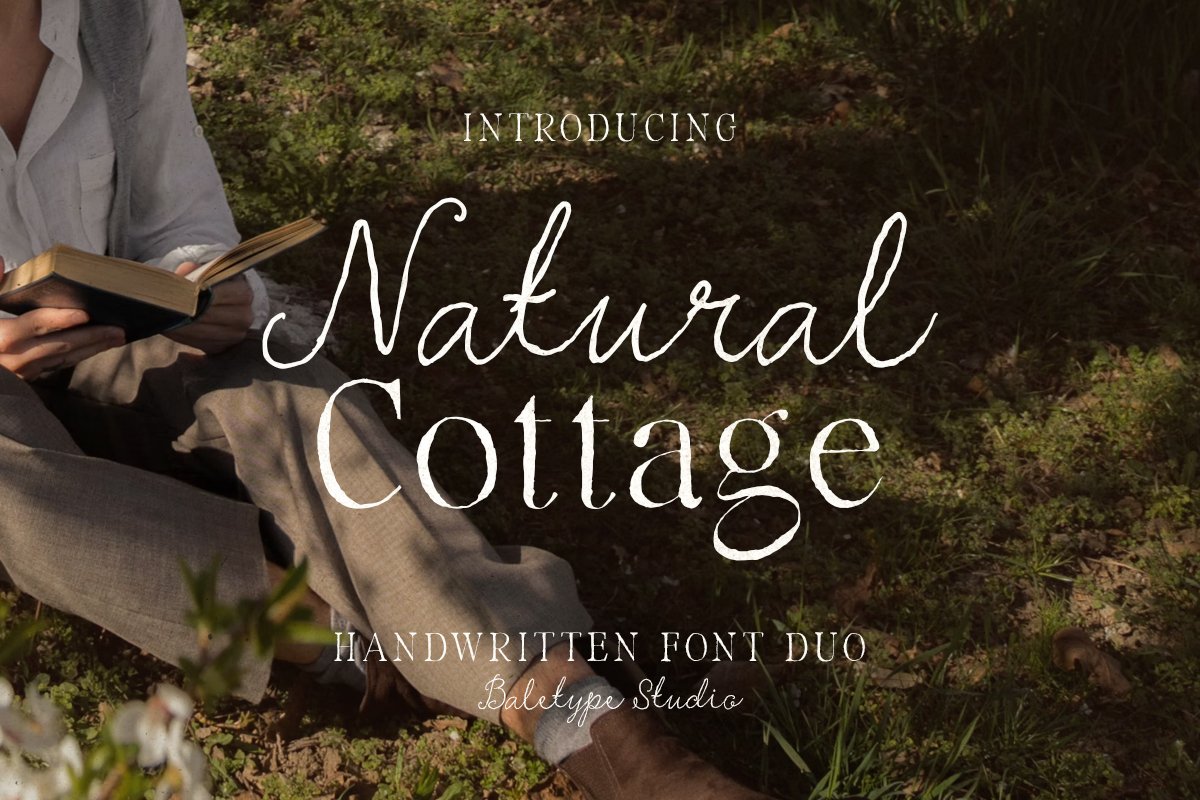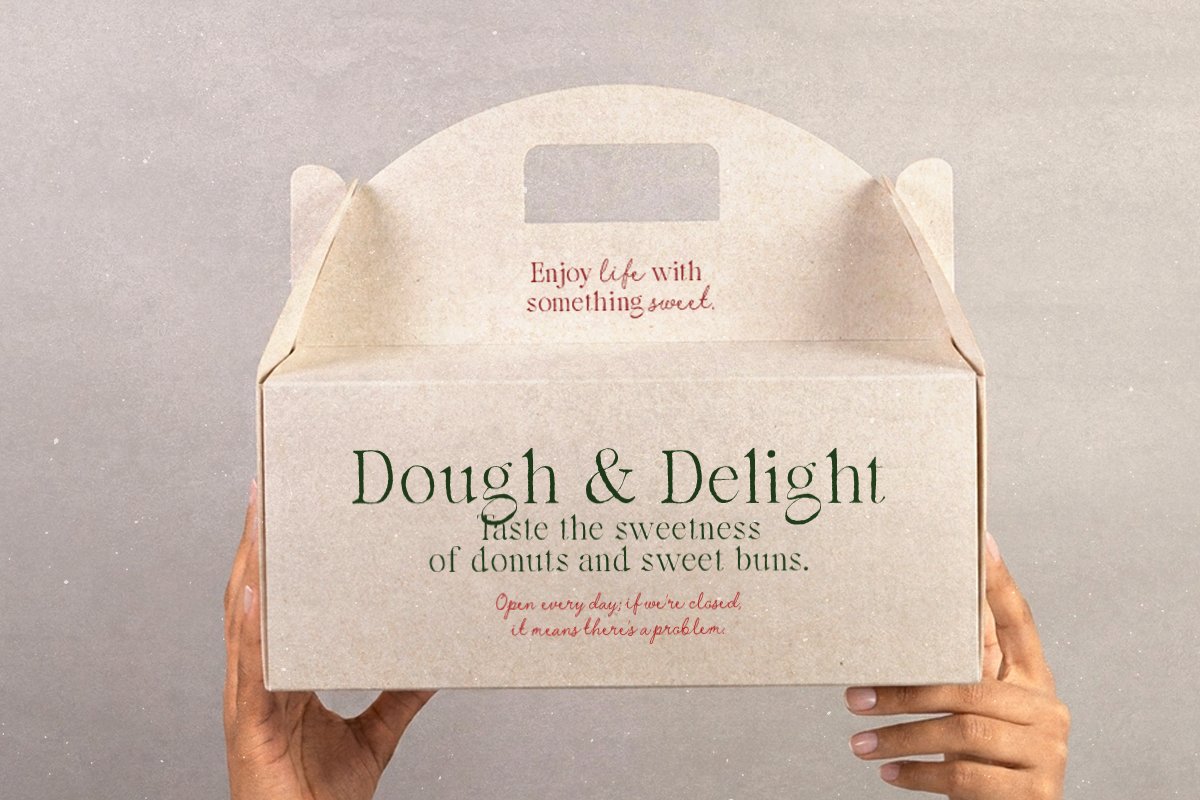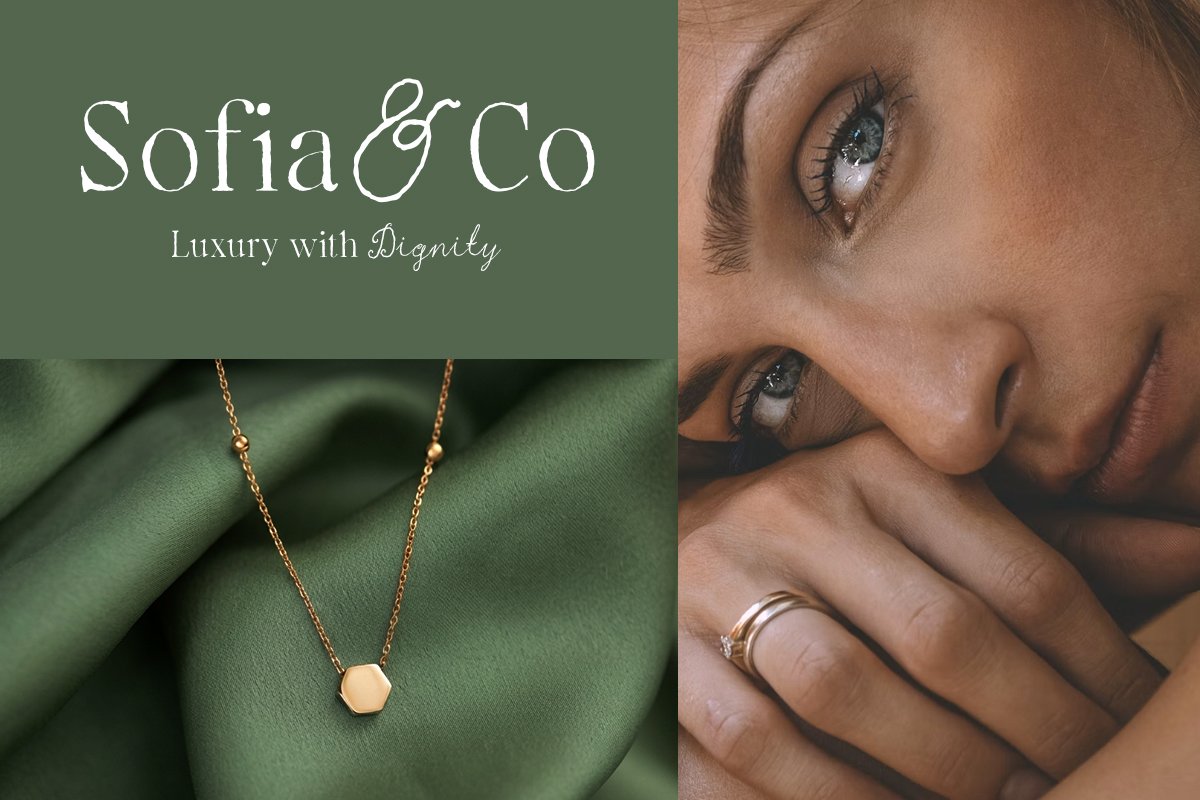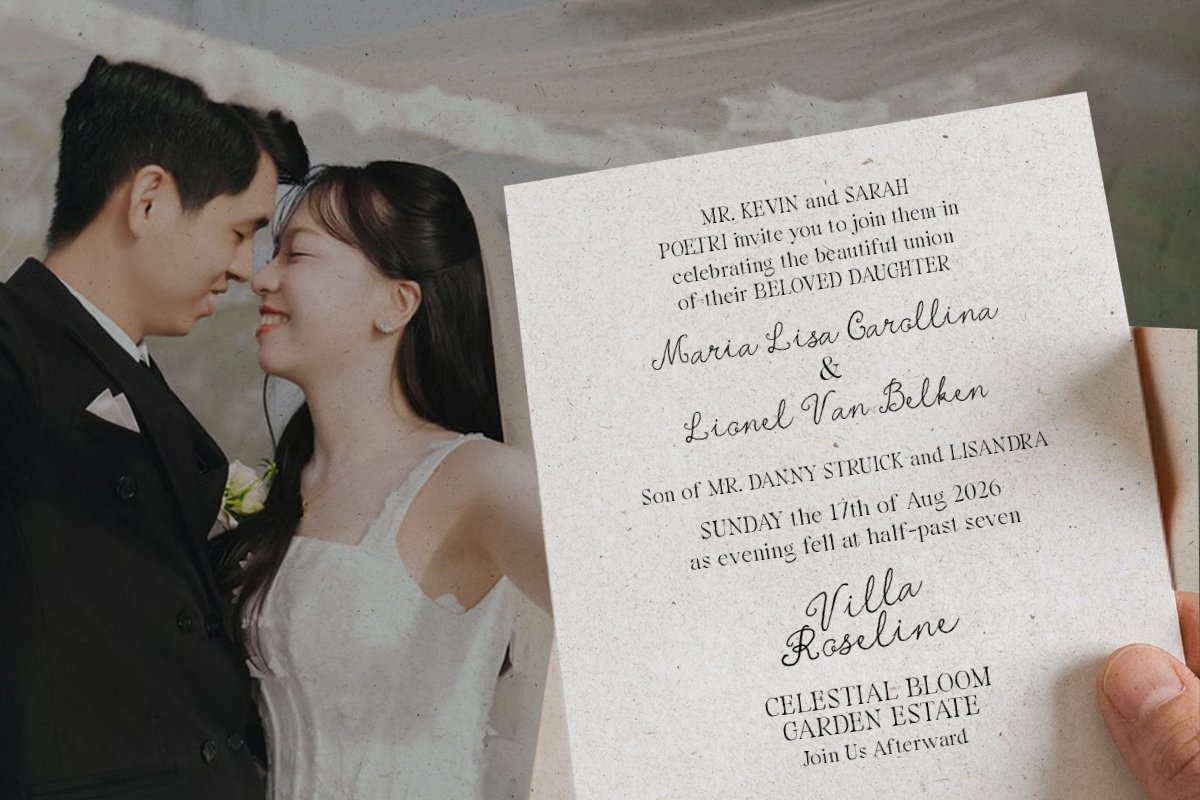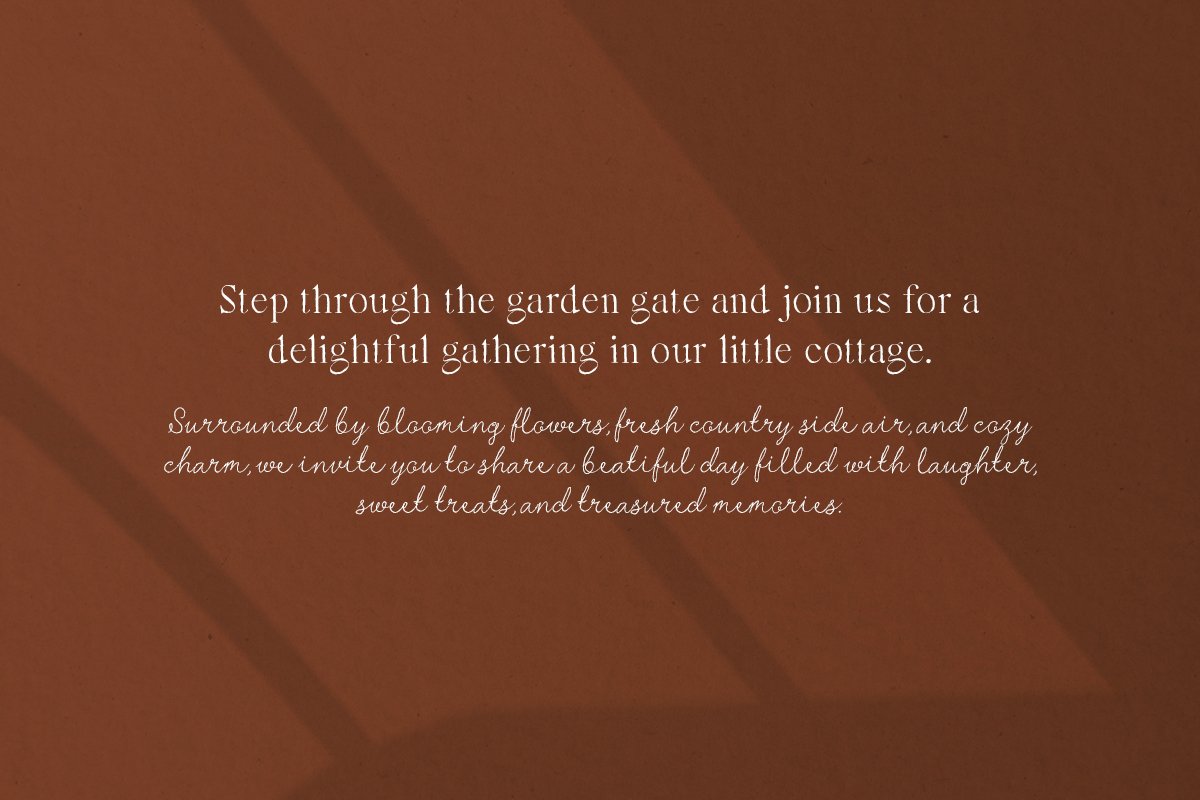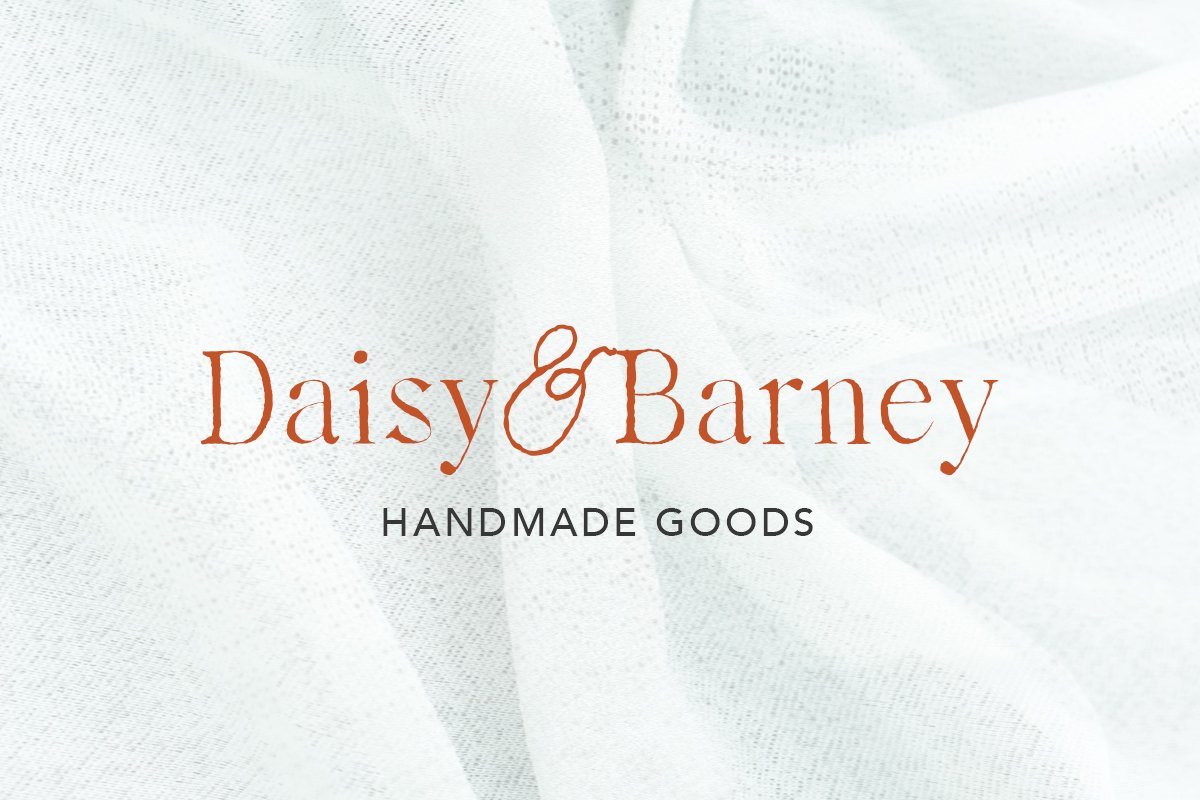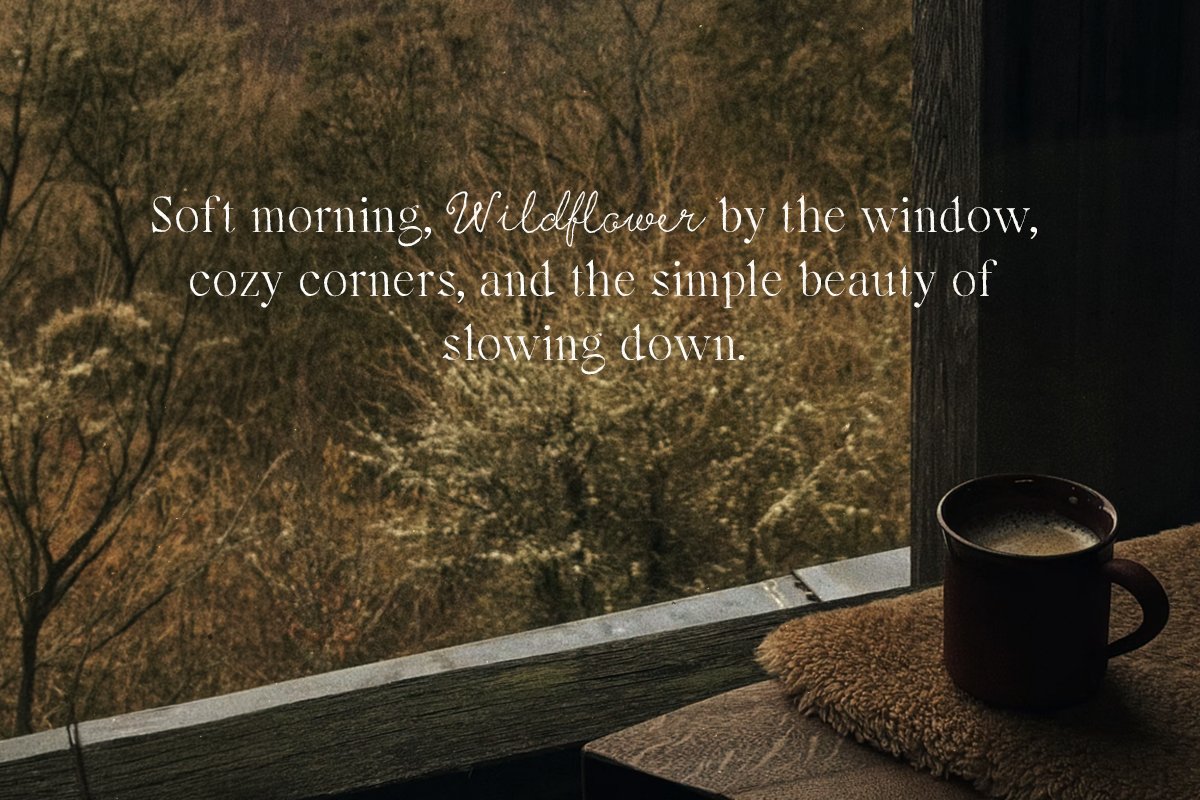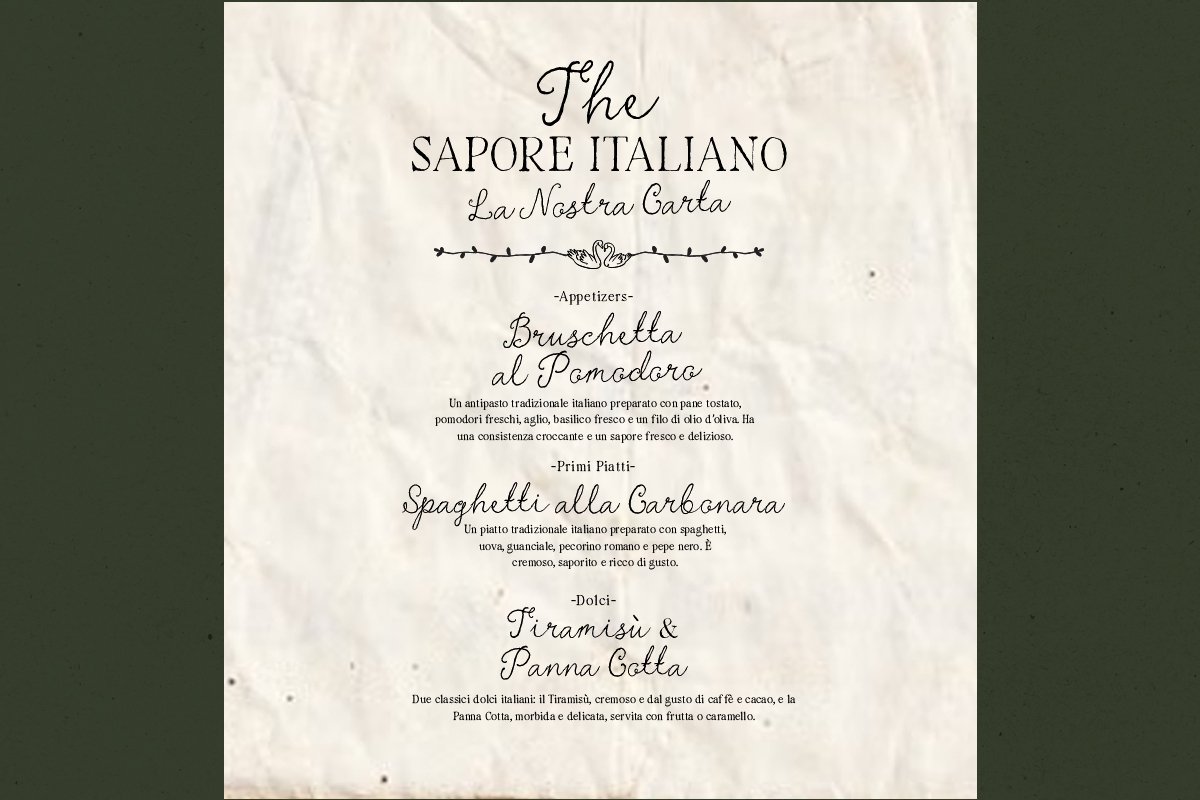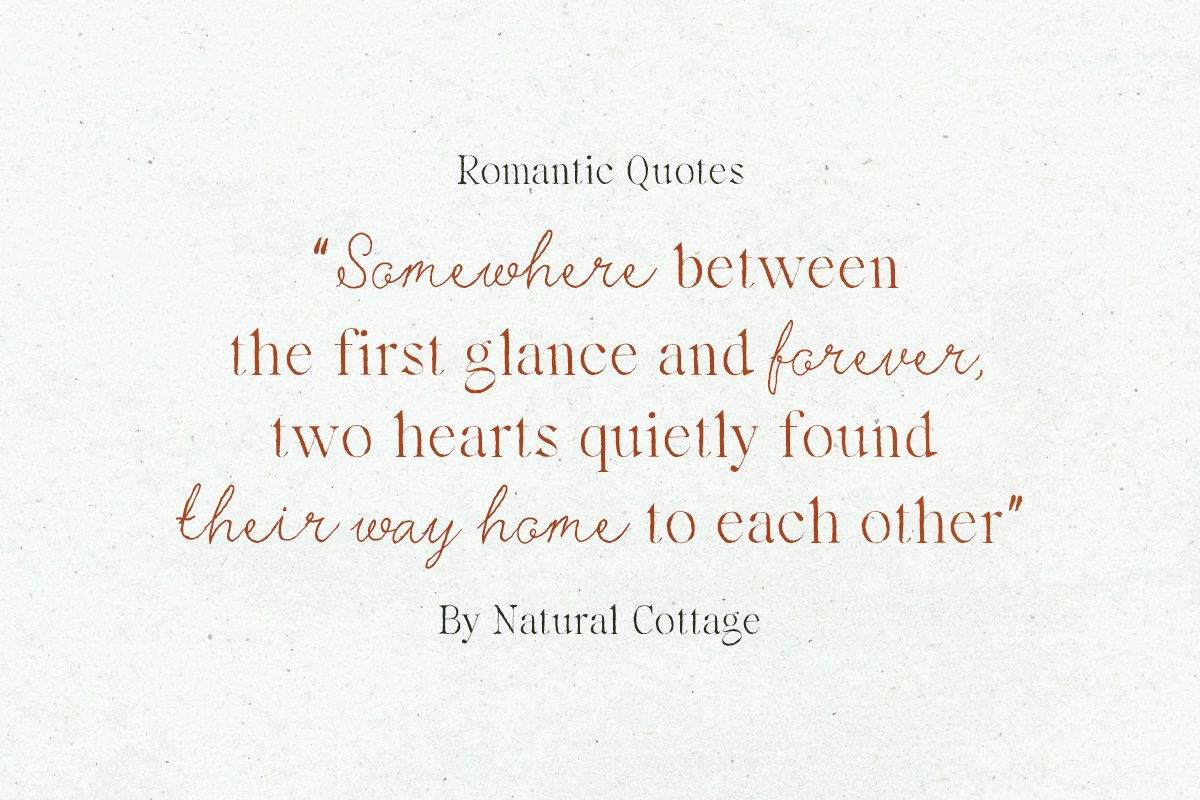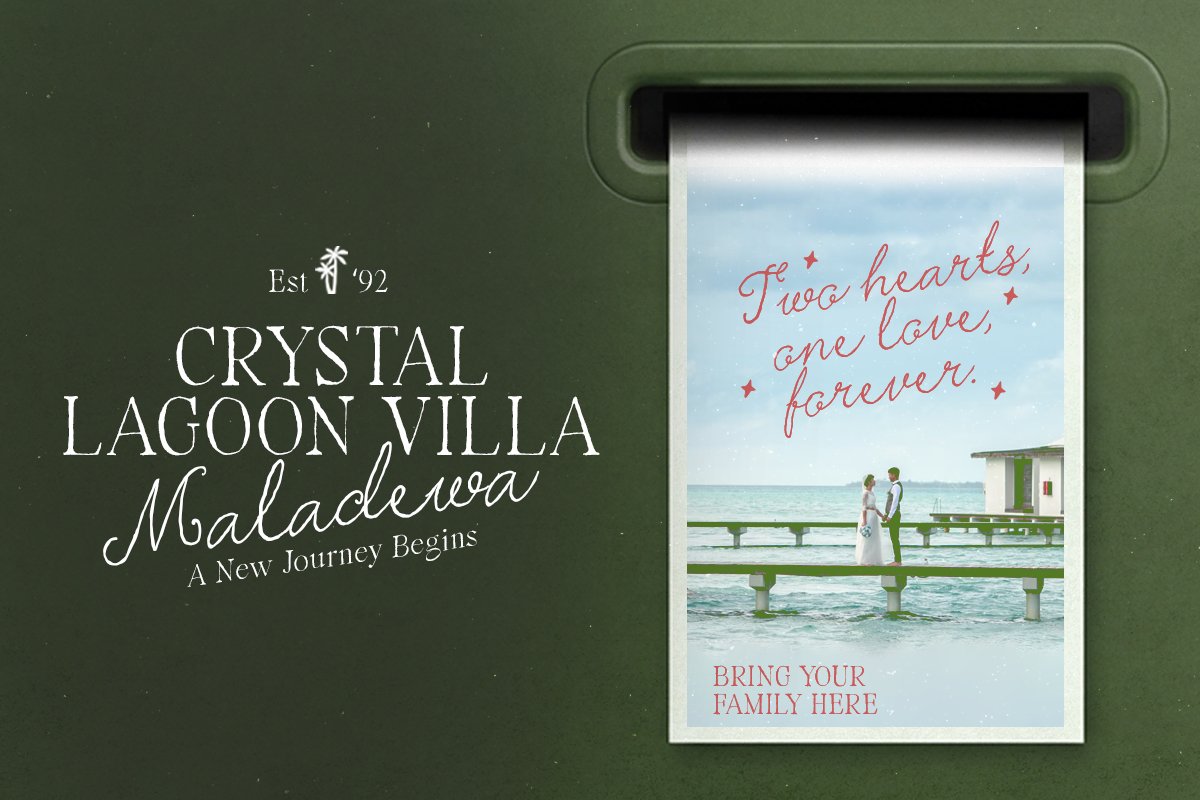
Natural Cottage is a handmade font duo including rough and light serif and script. You can use this font for any purposes such as branding, logotype, quote, wedding invitations, or any project that need to look rusty and hand lettering vibes. This font duo also support multi language.
Natural Cottage – Handmade Font Duo
Natural Cottage is a handmade font duo including rough and light serif and script.